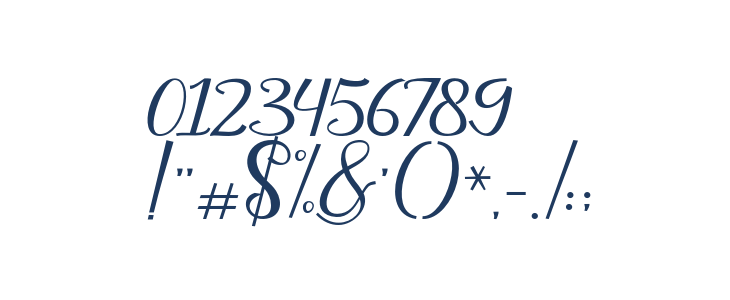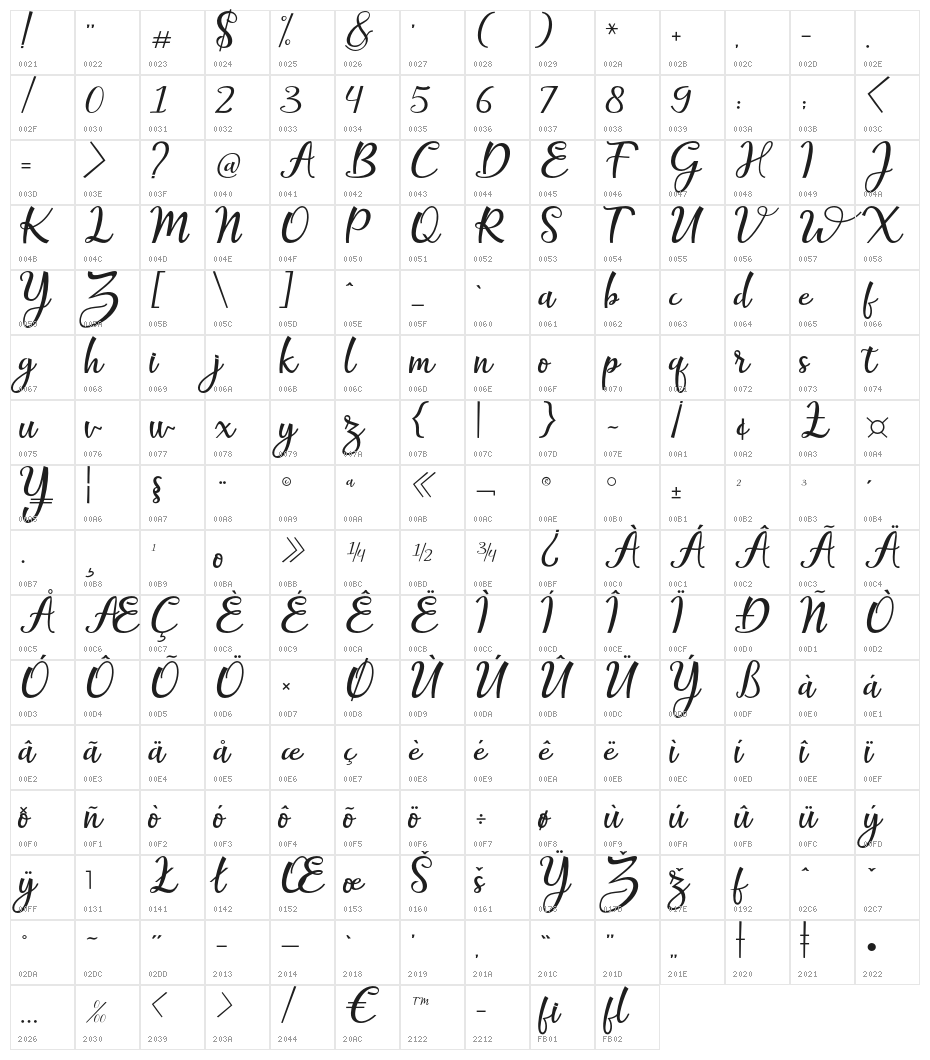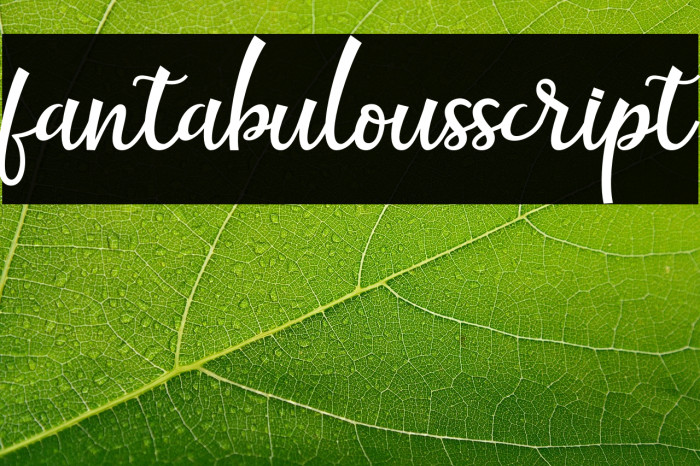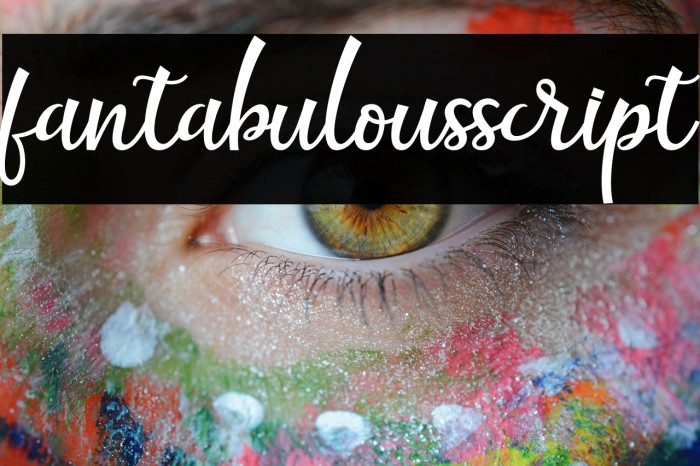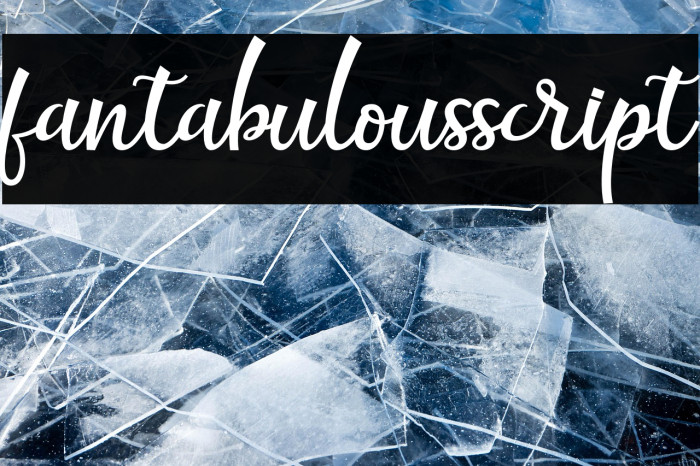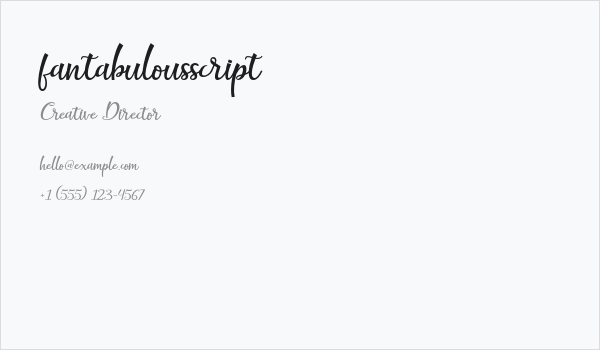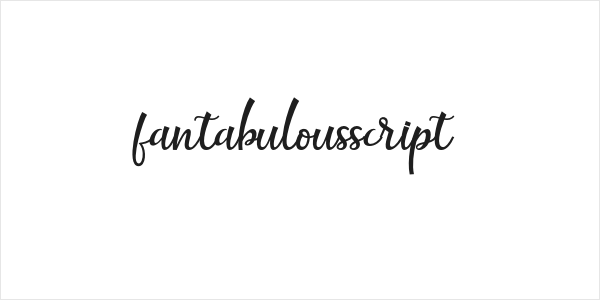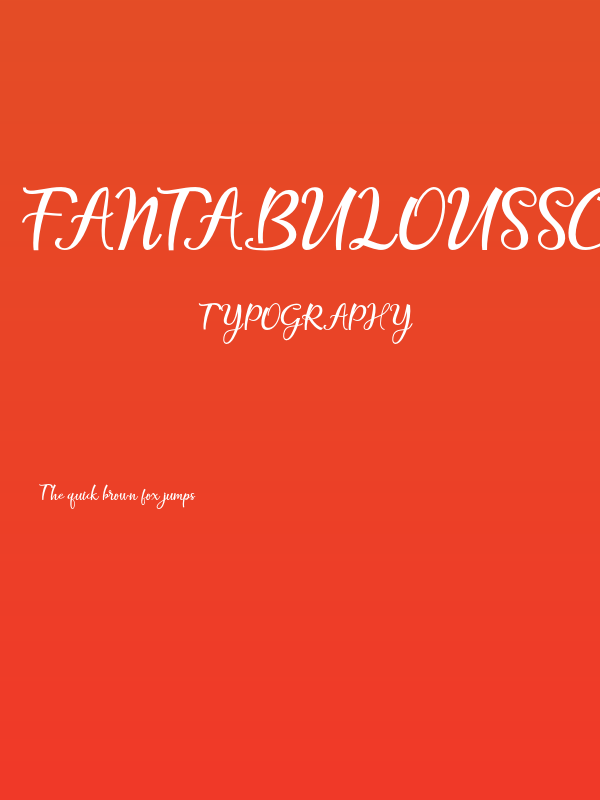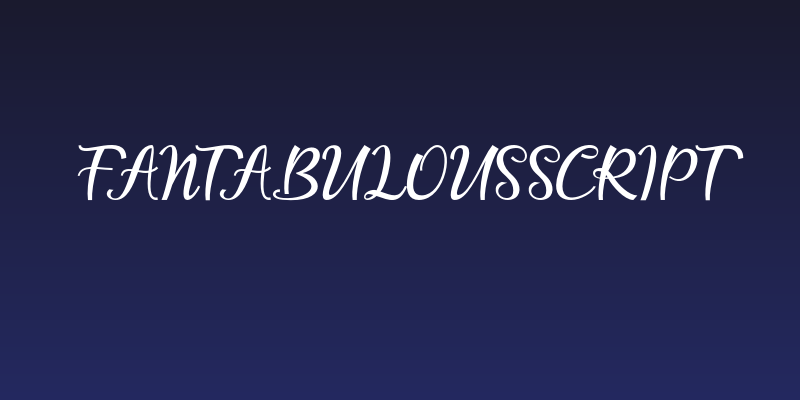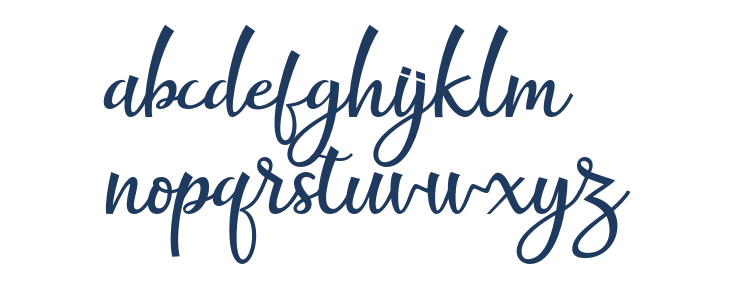
fantabulousscript Font
fantabulousscript Description
This font exudes elegance and fluidity, characterized by its cursive, handwritten style. The letters are interconnected with smooth, flowing strokes, creating a sense of movement and grace. The uppercase letters are slightly more ornate, with flourishes that add a touch of sophistication. The lowercase letters maintain a consistent rhythm, enhancing readability while preserving the artistic flair. The numerals are designed with a similar aesthetic, ensuring cohesion across all characters. Special characters are crafted with the same attention to detail, making this font versatile for various applications.
| Overall Style | Elegant, Artistic |
| Use Case | Logos, Invitations, Decorative text |
| Proposed Projects | Ideal for wedding invitations, greeting cards, elegant branding, and personal stationery. |